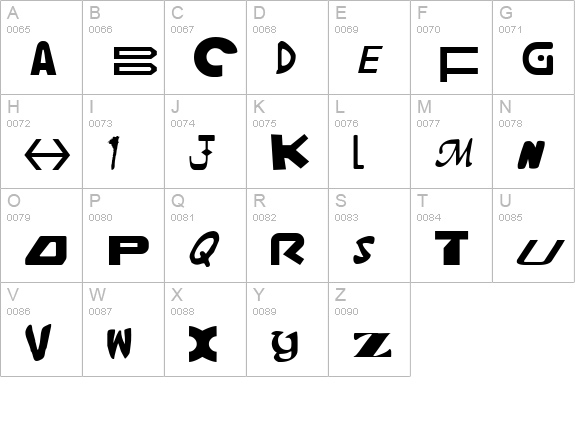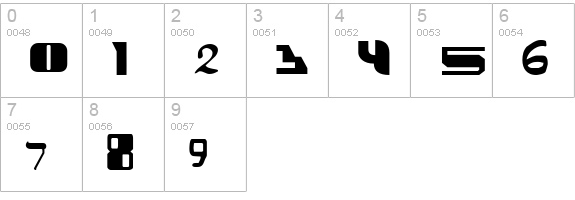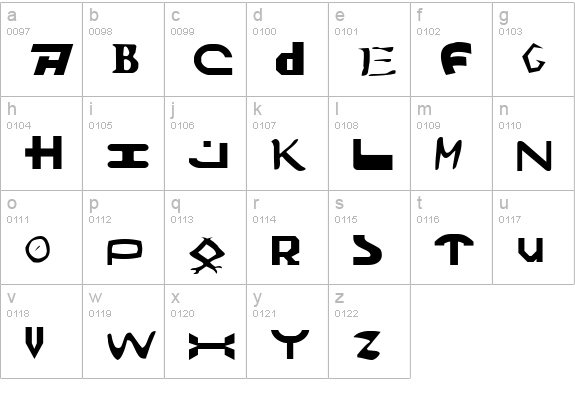
Amalgam Font Details
Amalgam font is a versatile and modern typeface that combines elements of both classic and contemporary design, making it suitable for a wide range of projects. With its sleek lines and unique character shapes, Amalgam font adds a touch of sophistication to any design. Whether you're working on a branding project, website design, or print materials, this font is sure to make a statement. Best of all, Amalgam font is available for free download at FontsMarket.com. This means you can easily access this stylish font and use it in your projects without any cost. Don't miss out on the opportunity to enhance your designs with the elegant and eye-catching Amalgam font. Download it today and take your creations to the next level!